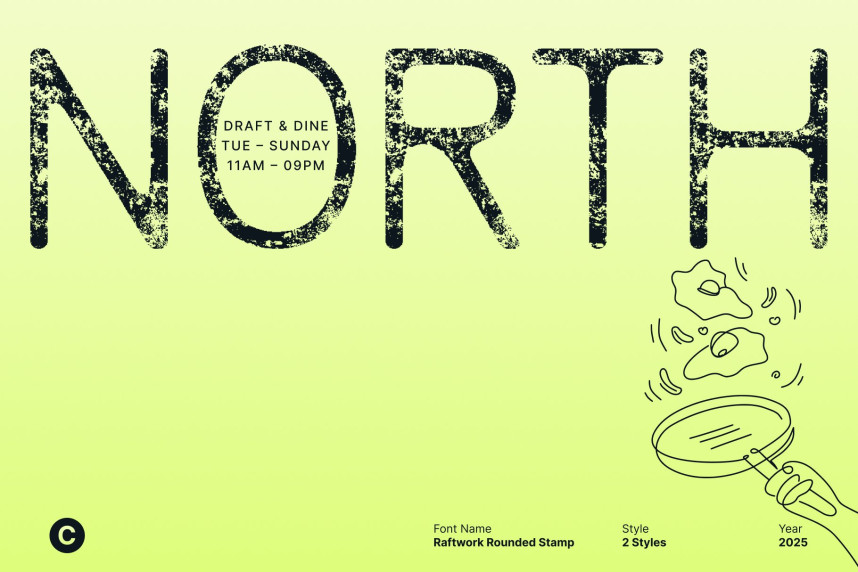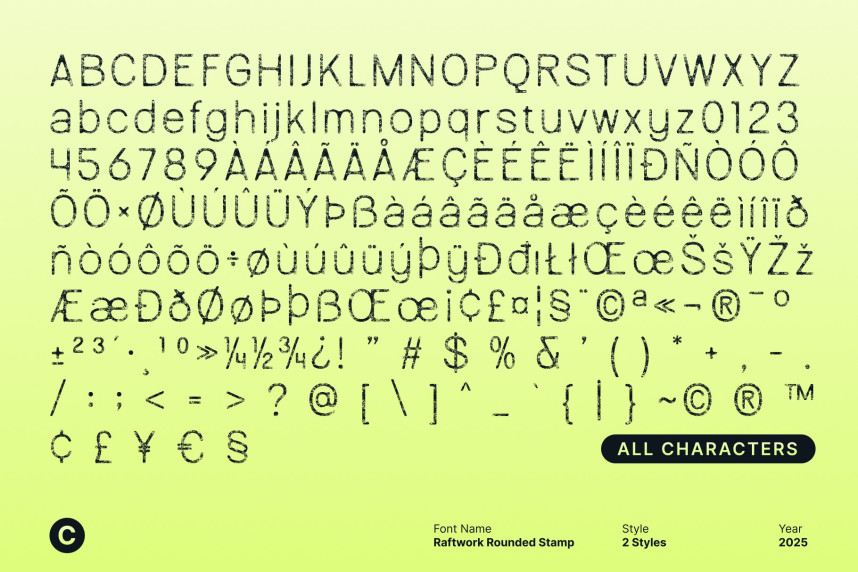
Raftwork Rounded Stamp Font
Raftwork Rounded Stamp Font – Contemporary Industrial Sans Serif with Vintage Texture A Contemporary Typeface with Corporate Strength and Modern Appeal. This is a contemporary sans serif font crafted with a blend of corporate precision, industrial influence, and trending modern style. Its clean structure and rounded edges create a professional, sophisticated, and captivating visual presence.